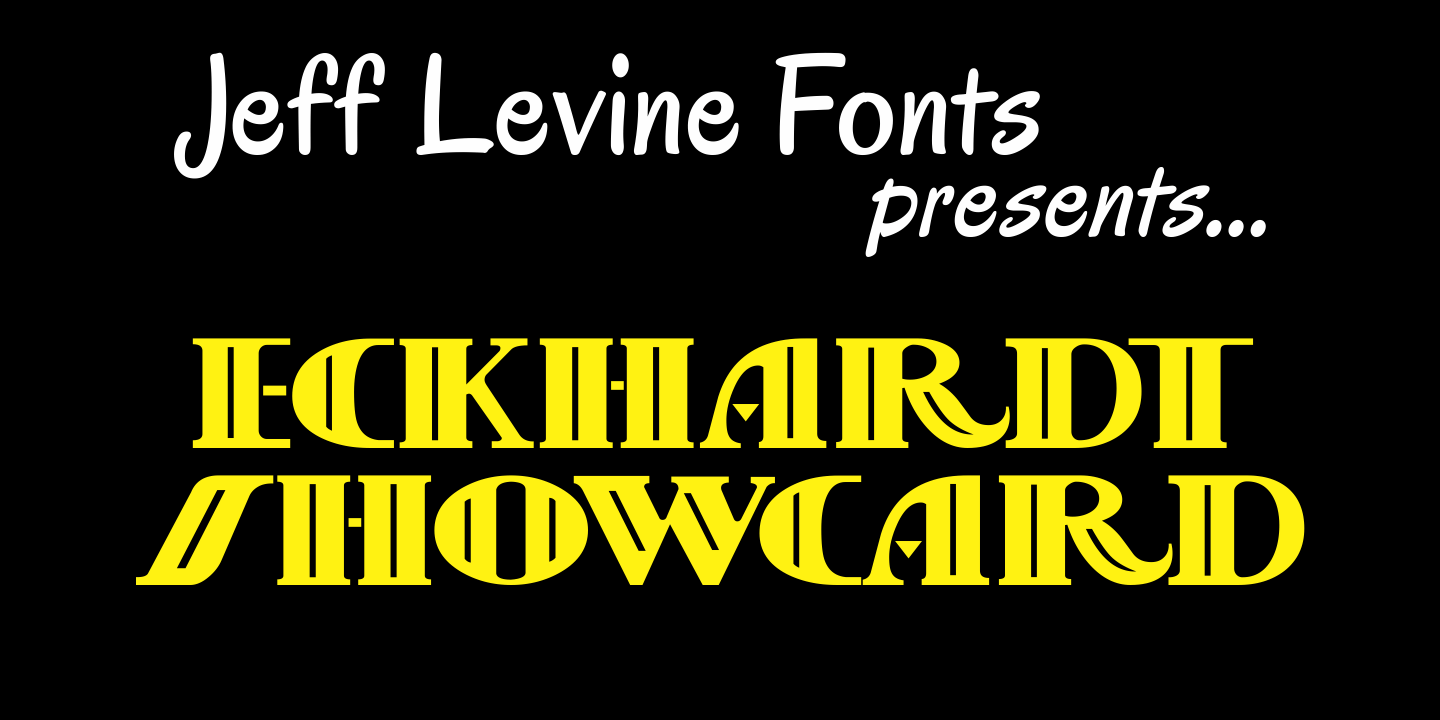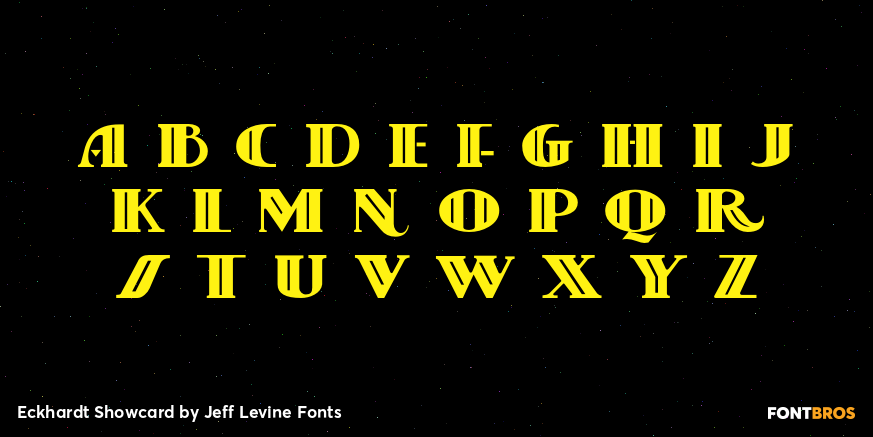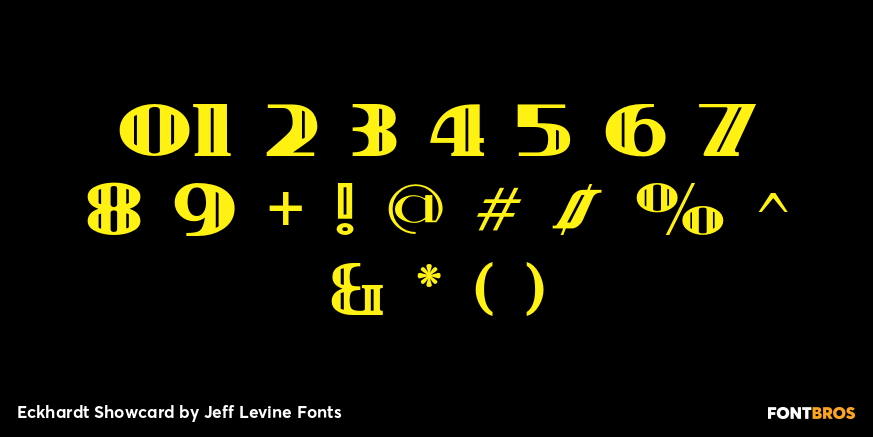
Eckhardt Showcard
Eckhardt Showcard JNL and Eckhardt Showcard Two JNL are drawn from more lettering found in an old sign painting book.
Jeff Levine has continued naming a series of fonts for the late Albert Eckhardt, Jr. (1929-2005) who had owned Allied Signs in Miami, Florida from 1959 until his passing.